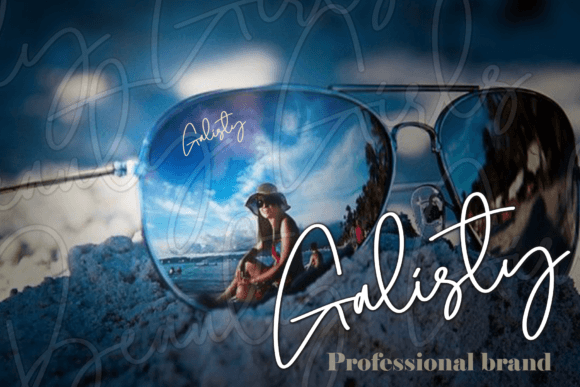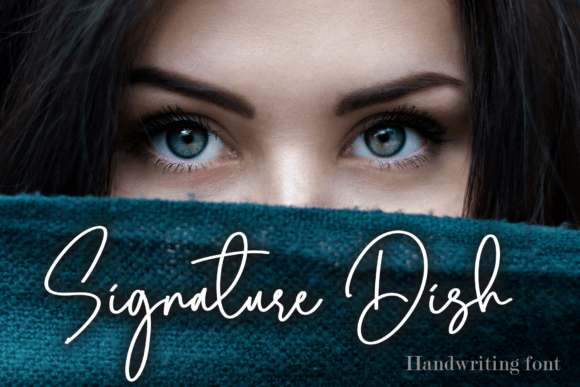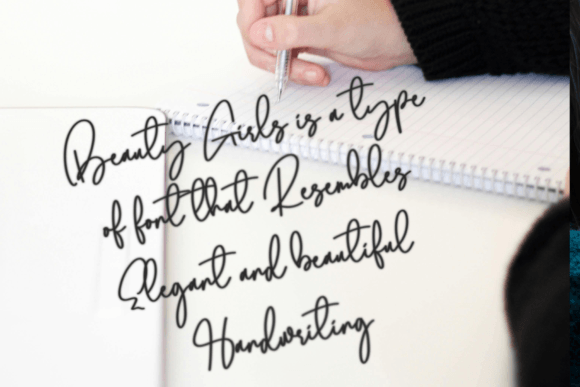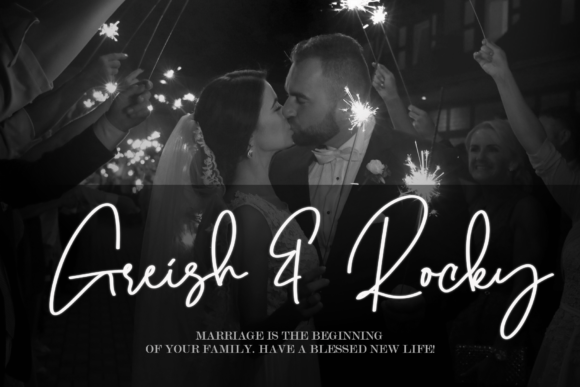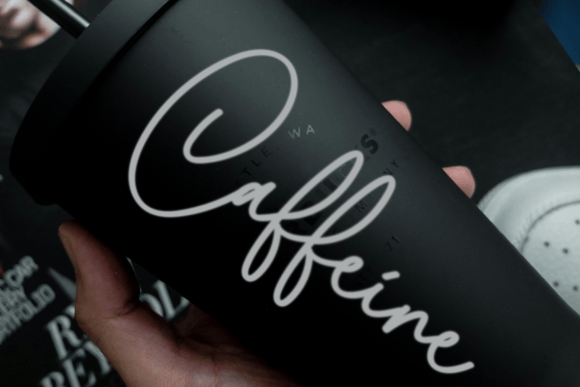
Introducing Beauty Girls Font: The Perfect Addition to Your Cheerful Designs
Are you a designer or crafter looking for a font that can add a touch of fun and quirkiness to your projects? Look no further than the Beauty Girls Font! This handwriting font is perfect for use on cheerful topics and is especially suitable for children’s themed designs. When combined with bright colors, Beauty Girls Font is sure to make your designs pop!
What Makes Beauty Girls Font So Special?
Beauty Girls Font is a unique and playful font that is designed to bring a smile to your face. Its fun and quirky style makes it perfect for use on a wide range of projects, from children’s party invitations to educational materials, and even craft projects like DIY tutorials and patterns.
One of the standout features of Beauty Girls Font is its PUA (Private Use Area) encoding. This means that you can access all of the amazing glyphs and ligatures with ease, giving you even more creative possibilities for your designs.
Perfect for Children’s Themed Designs
Beauty Girls Font is especially well-suited for children’s themed designs. Its playful and cheerful style is sure to appeal to kids and parents alike, making it perfect for use on:
- Children’s party invitations and decorations
- Educational materials like worksheets and activity sheets
- Craft projects like DIY tutorials and patterns
- Kids’ clothing and accessories
Combining Beauty Girls Font with Bright Colors
To really make your designs shine, try combining Beauty Girls Font with bright and bold colors. This font looks amazing with a wide range of colors, from pastel pinks and blues to bright yellows and oranges.
Some color combinations to try:
- Pair Beauty Girls Font with a bold and bright color like hot pink or electric blue for a fun and playful look
- Combine Beauty Girls Font with a pastel color palette for a softer, more whimsical feel
- Use Beauty Girls Font with a neutral color like white or gray, and add pops of bright color with graphics or images
Tips for Using Beauty Girls Font in Your Designs
Here are a few tips for getting the most out of Beauty Girls Font in your designs:
- Experiment with different font sizes and styles to add visual interest to your designs
- Use Beauty Girls Font in combination with other fonts to create a unique and eye-catching look
- Don’t be afraid to get creative and try out new and unusual design ideas
Beauty Girls Font is a fun and quirky handwriting font that is perfect for use on cheerful topics. With its PUA encoding and wide range of glyphs and ligatures, this font is sure to add a touch of personality to your designs. Whether you’re a designer or crafter, Beauty Girls Font is a great addition to your font collection.